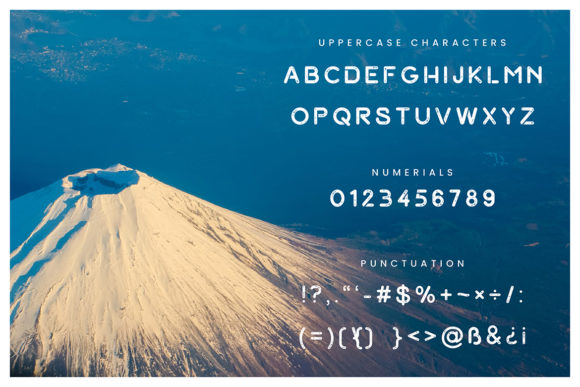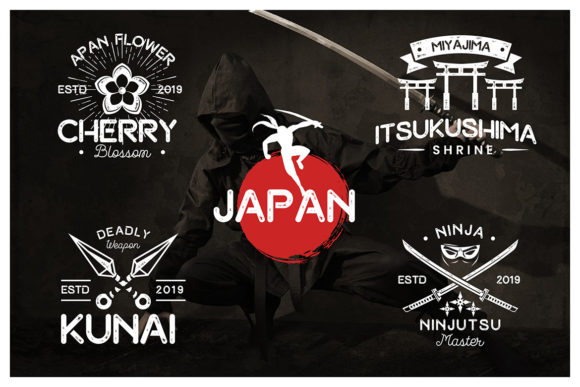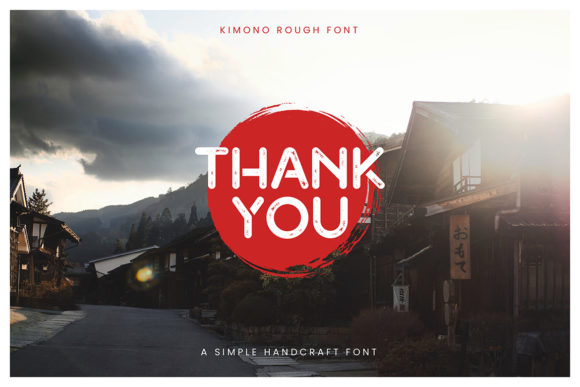
Introduction to Kimono Font
Kimono is a bold and authentic display font.
Add it to your most creative ideas and notice how it makes them come alive .
Key Features of Kimono Font
Why Choose Kimono Font?
Kimono Font offers exceptional quality and versatility, making it a valuable addition to your design toolkit. Whether you’re creating for personal projects or commercial use, Kimono Font delivers professional results.